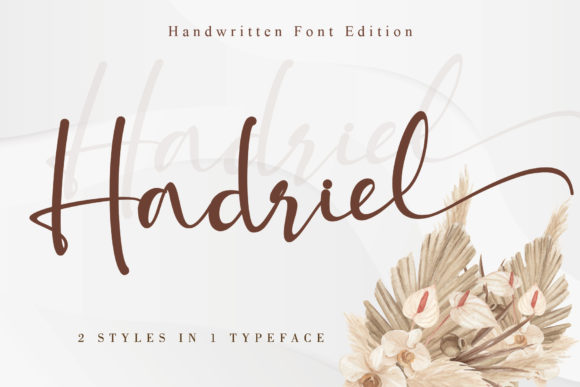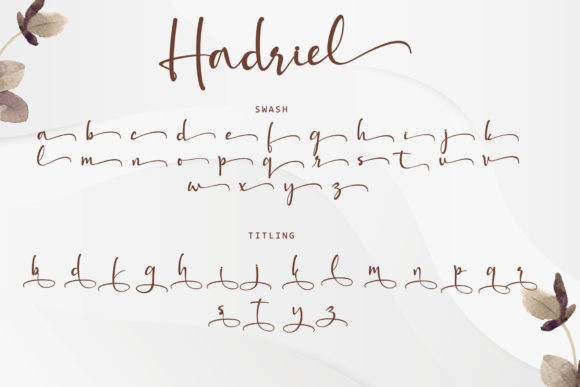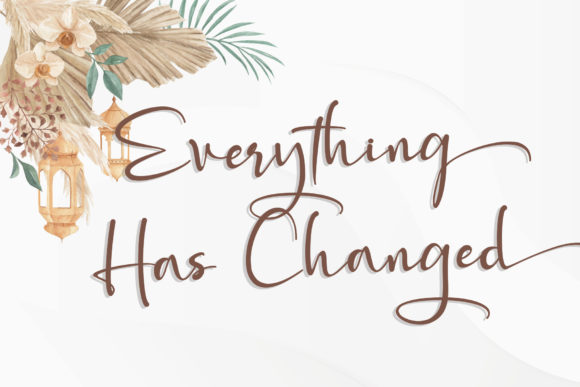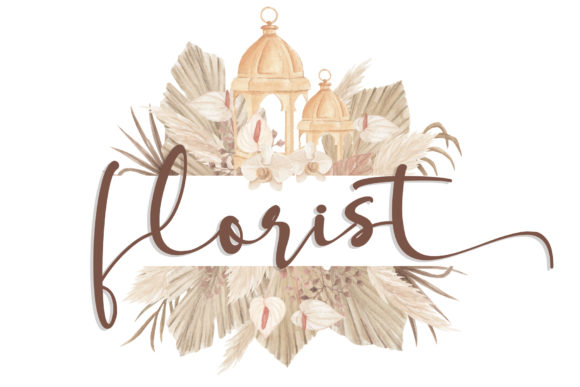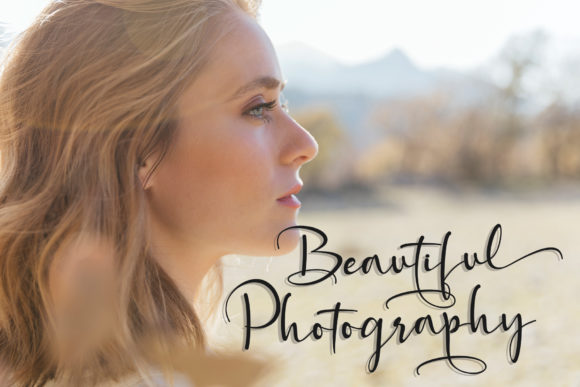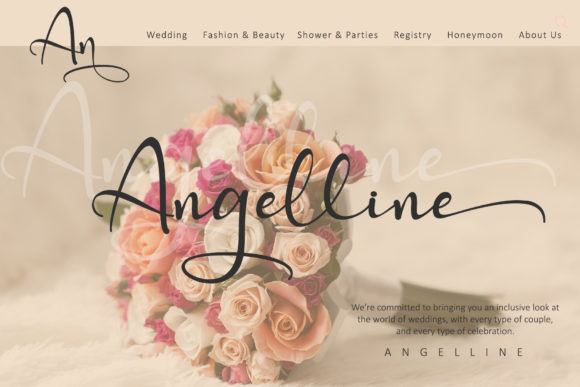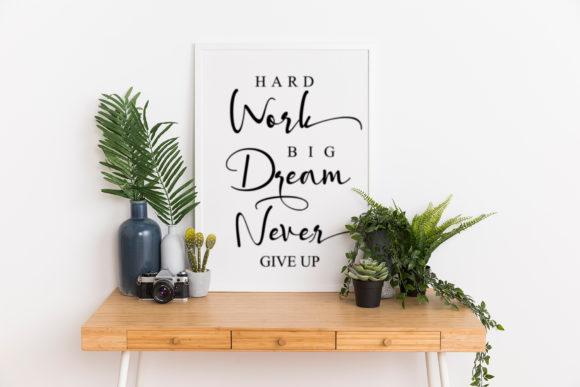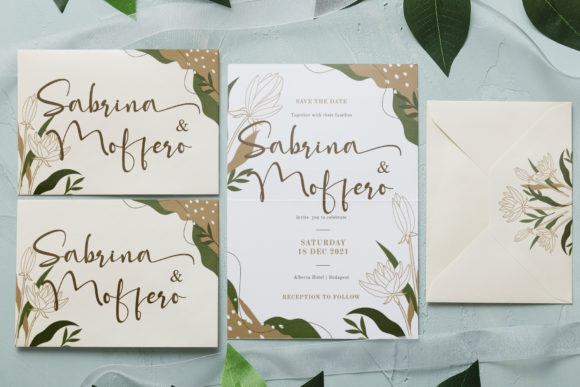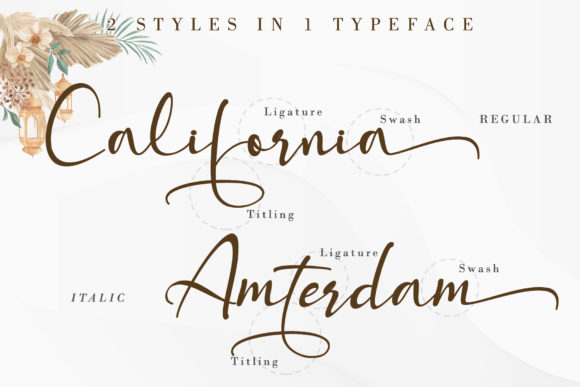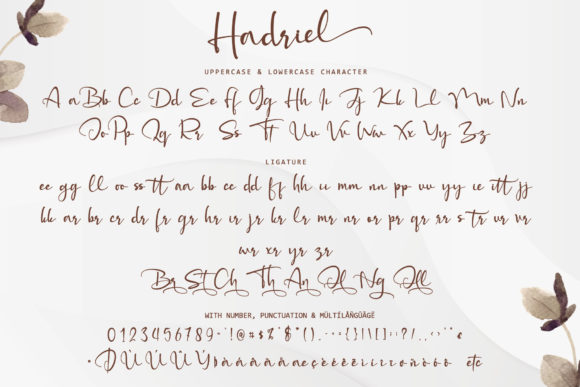
Hadriel Font
Hadriel is a beautiful and delicate handwritten font. It is PUA encoded which means you can access all of the glyphs and swashes with ease! It features a varying baseline, smooth lines, gorgeous glyphs and stunning alternates.
Fall in love with its incredibly versatile style and use it to create gorgeous wedding invitations, beautiful stationary art, eye-catching social media posts, and much more!